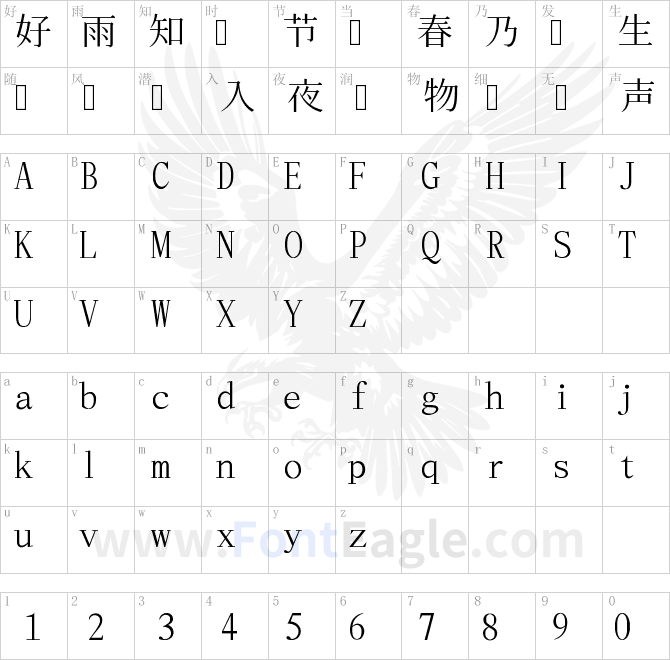
明朝體Ming A is a great font, widely used in graphic design, single-page menu design, poster design and other fields, and is deeply loved by designers.明朝體Ming A download.